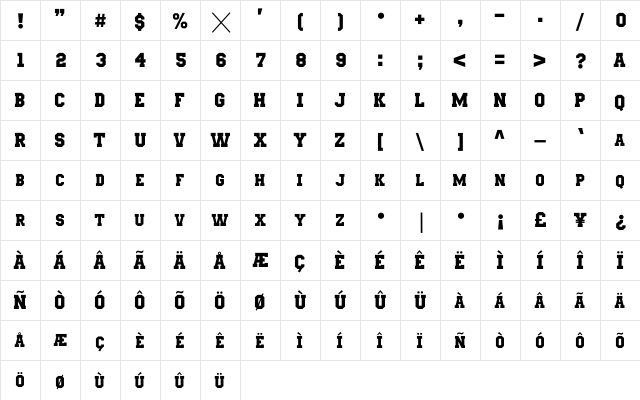
Mars&Twist Regular
Design Context for Mars&Twist Typeface
Mars&Twist takes a measured approach to typography — its balanced proportions and neutral character make it a reliable workhorse for both digital and print work.